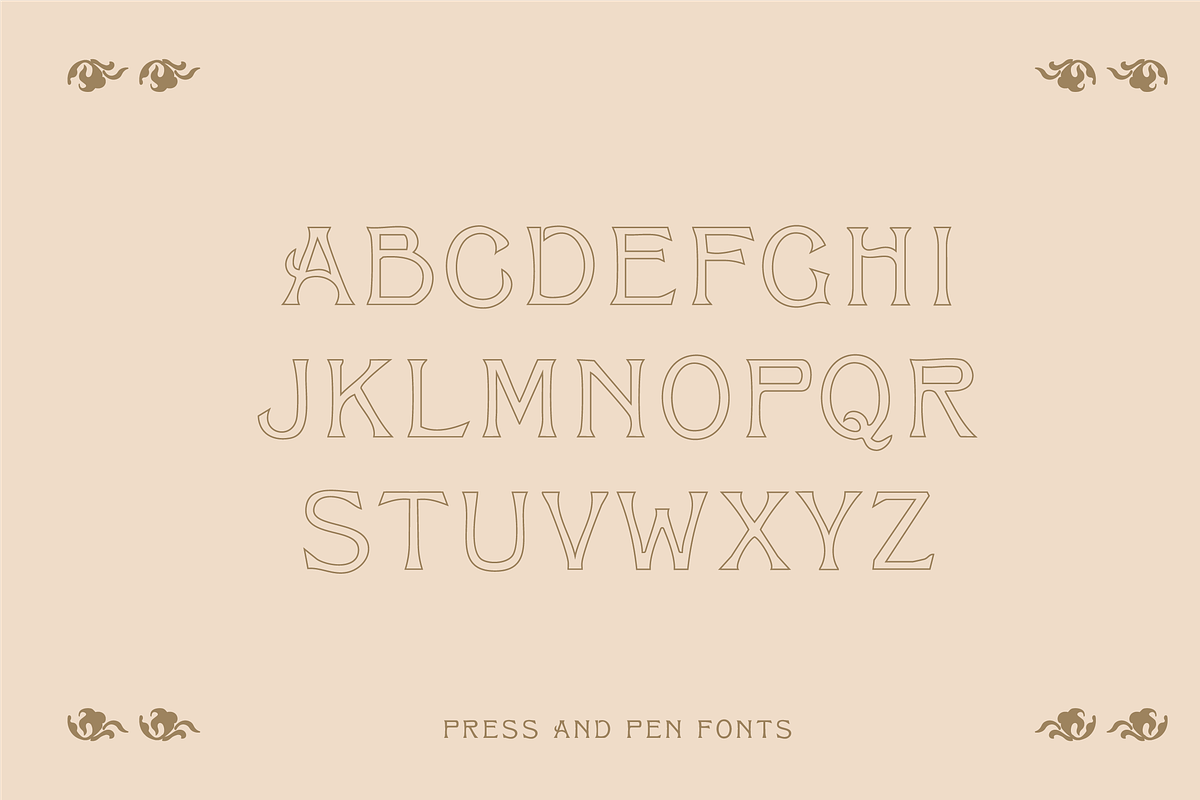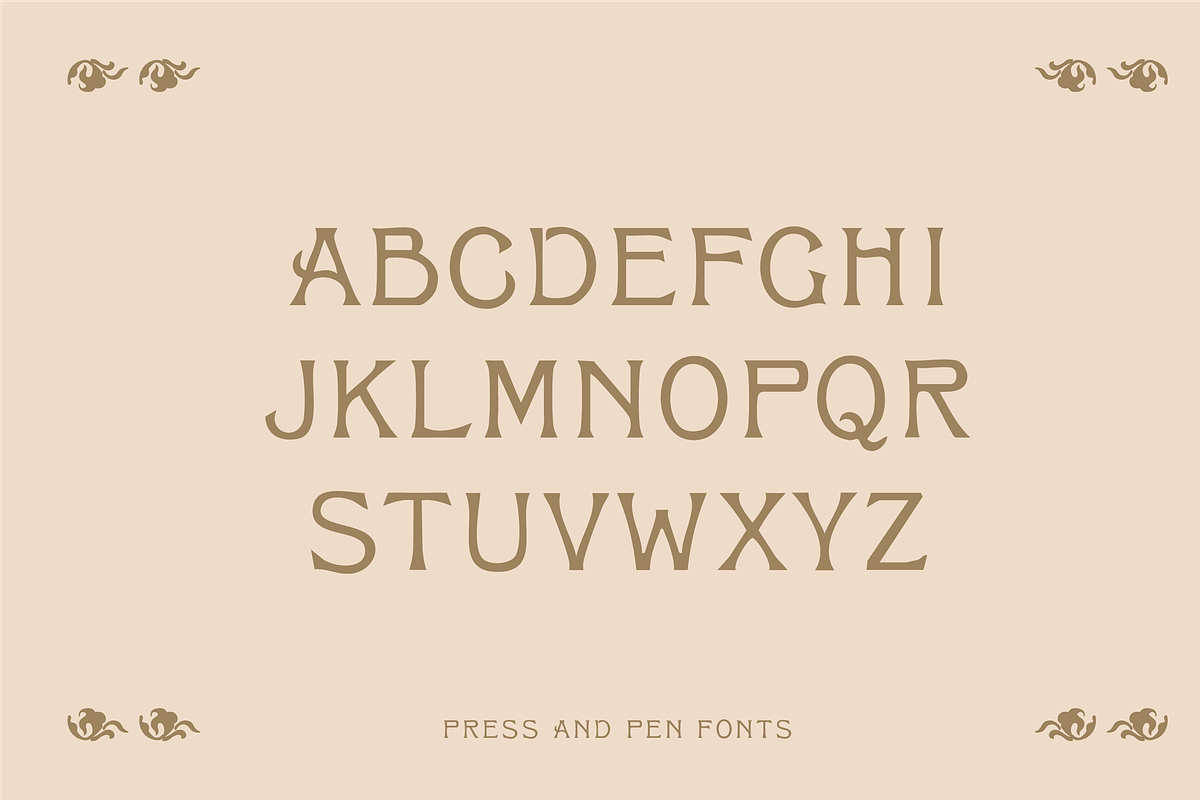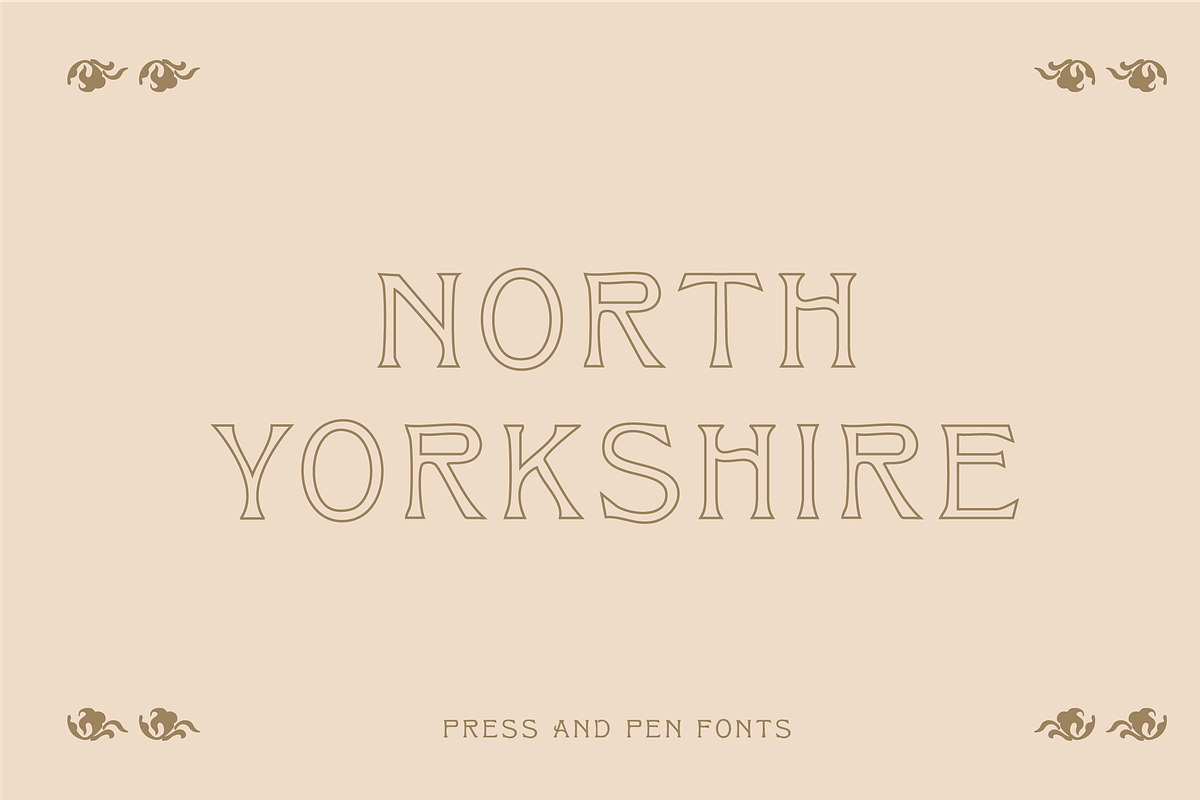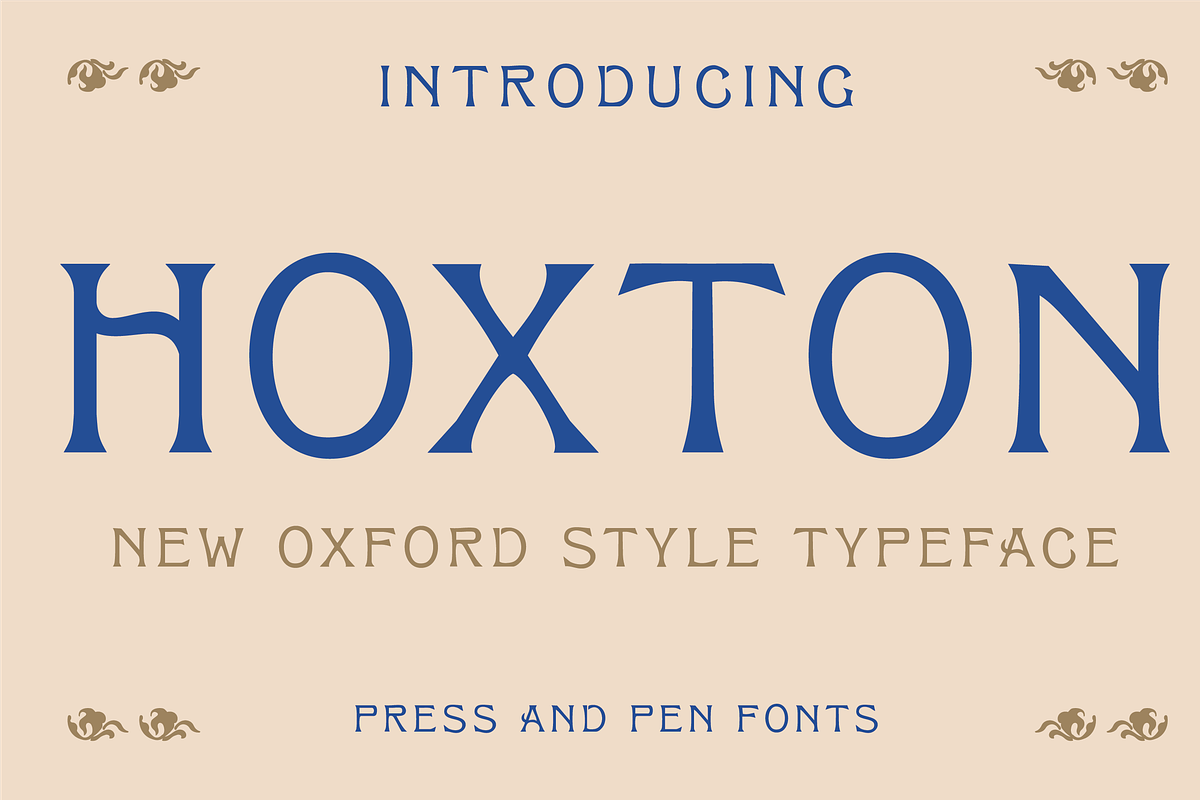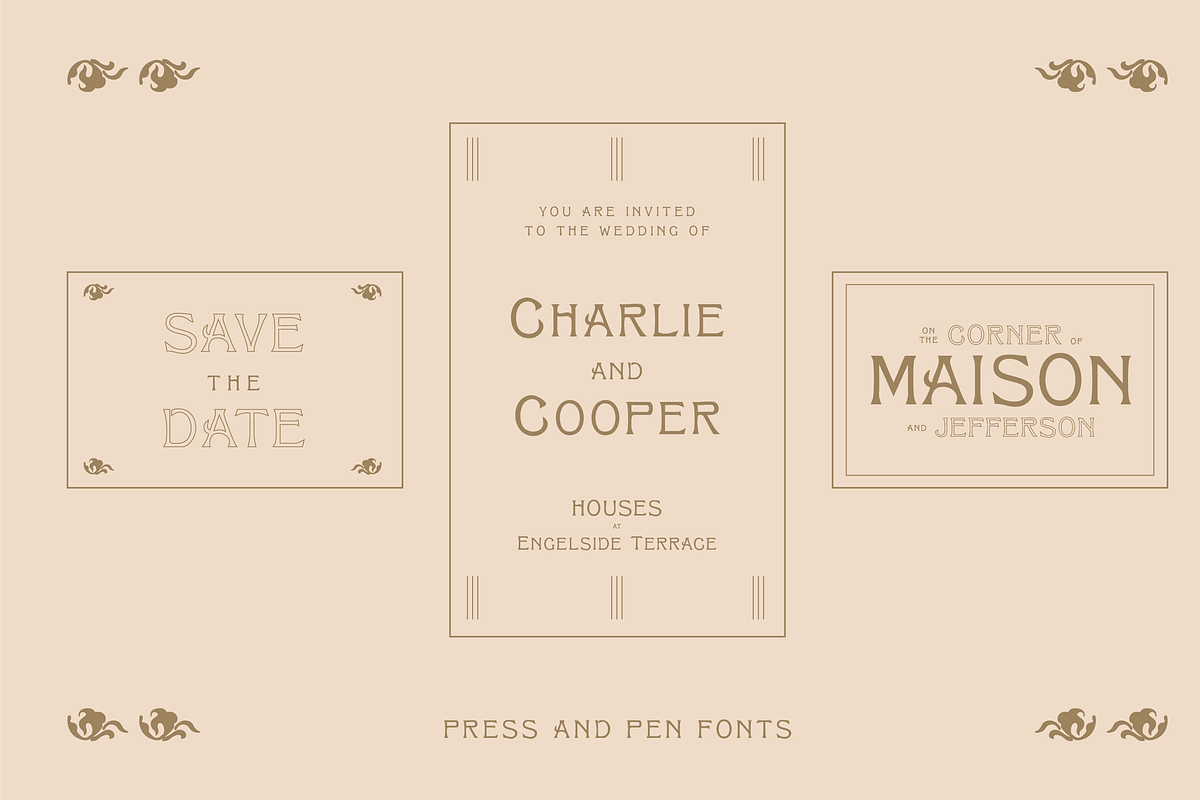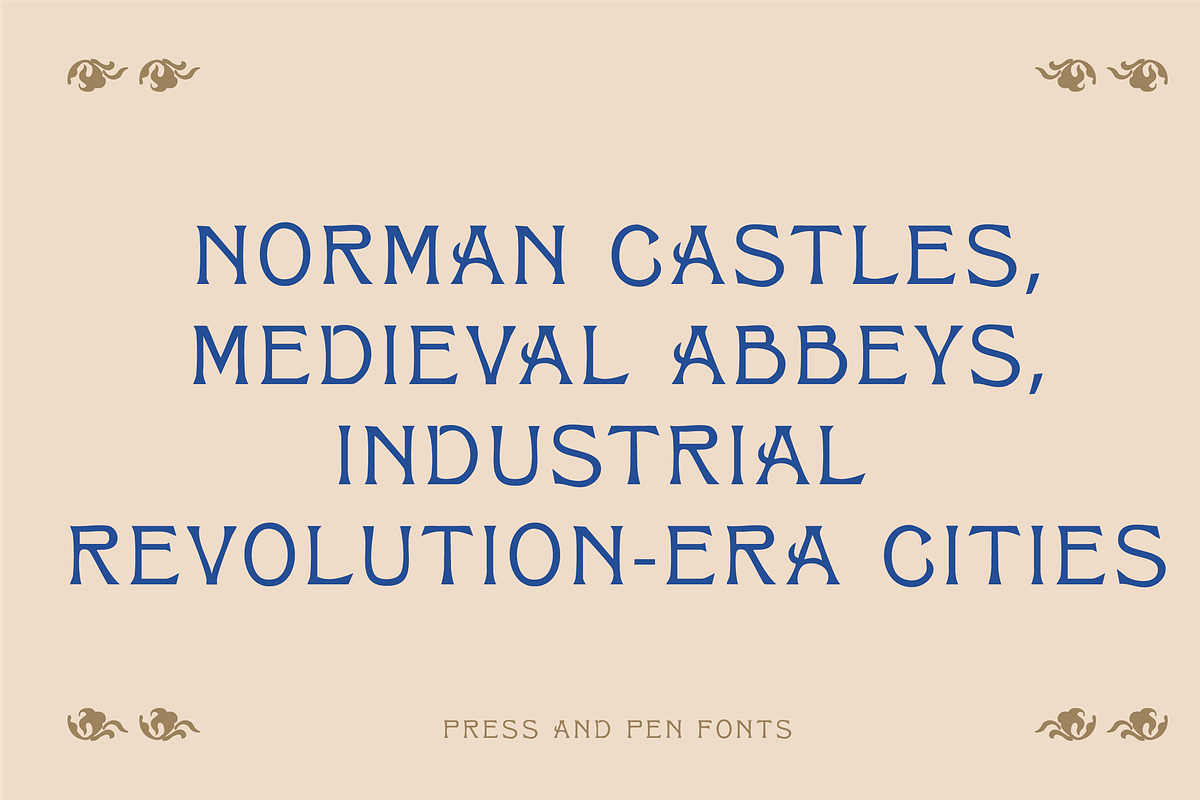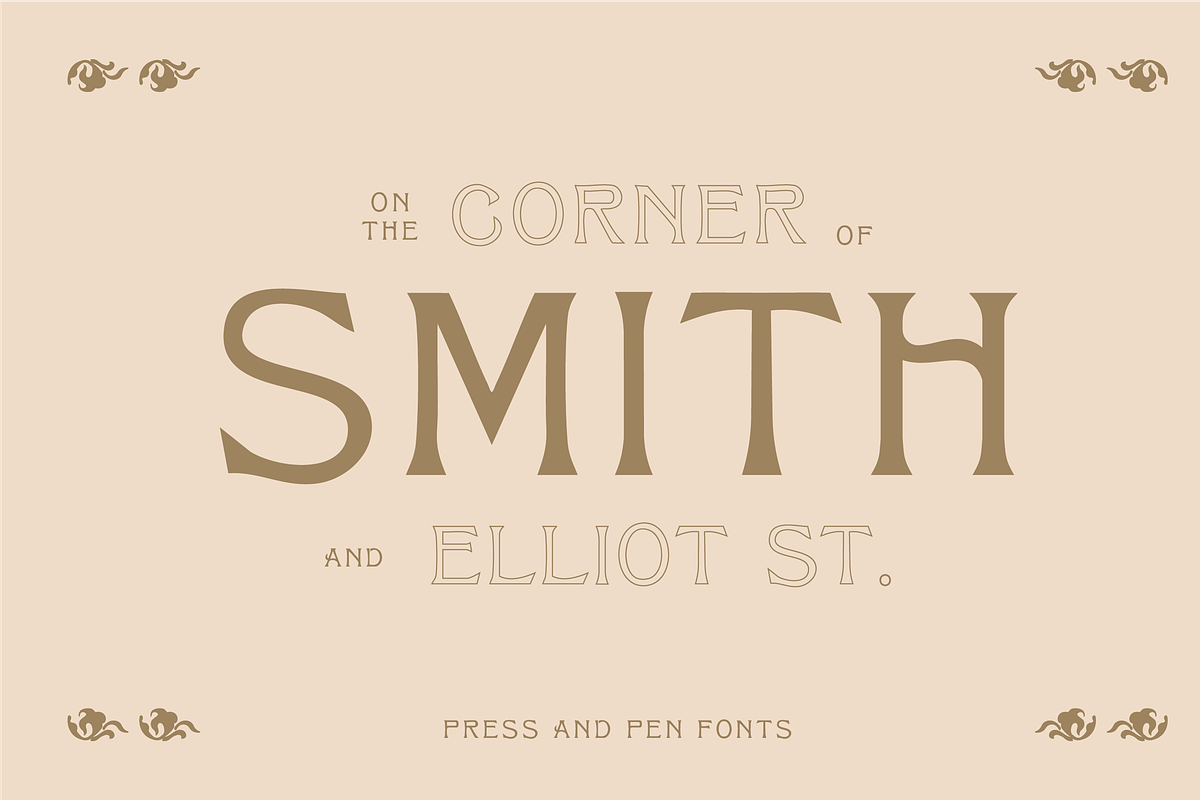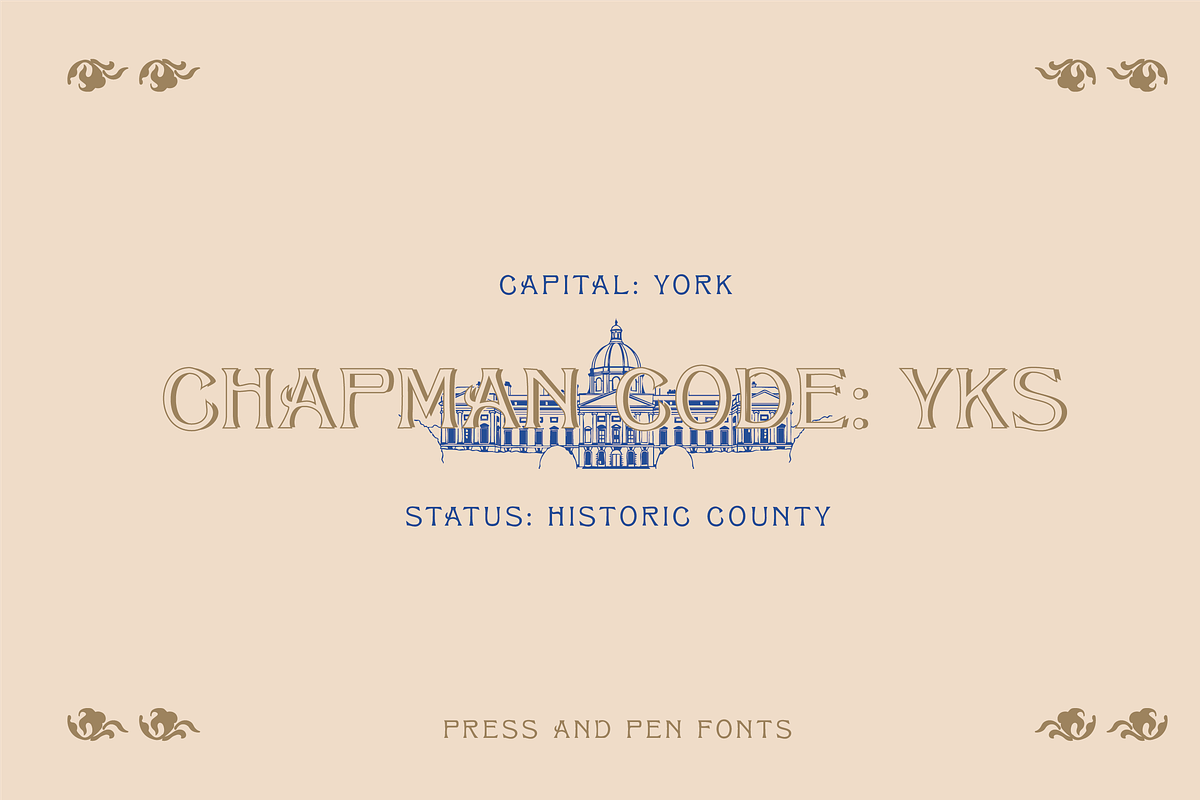
Hoxton: Elegant Serif
Step into classic elegance with Hoxton, a captivating serif typeface inspired by the architectural grandeur and literary history of Oxford's timeless design aesthetic. This versatile font family masterfully blends historical charm with modern clarity, offering a unique, sophisticated presence for your most ambitious projects.
Hoxton features striking, subtly flared serifs and unique, stylized organic curves within its letterforms, giving it a distinctive vintage feel that remains highly readable. Its refined, stately appearance makes it perfect for conveying heritage, quality, and artistic depth.
The Full Family This comprehensive package includes two styles to give you maximum design flexibility:
- Hoxton All Caps: A powerful version optimized for impactful headlines, titles, and maximum authority.
- Hoxton Outline: A highly stylized, contemporary outline version perfect for adding a layer of visual intrigue, overlaying effects, or creating a memorable graphic statement.
Ideal For: -High-End Branding & Logos: Distilleries, luxury hotels, bespoke retail, and publishing houses. -Versatile Branding: Its unique and memorable look ensures your brand stands out with an air of sophisticated confidence. -Editorial & Print Design: Magazine titles, book covers, and sophisticated packaging. -Website Headers: Adding instant, classic weight and authority to landing pages.